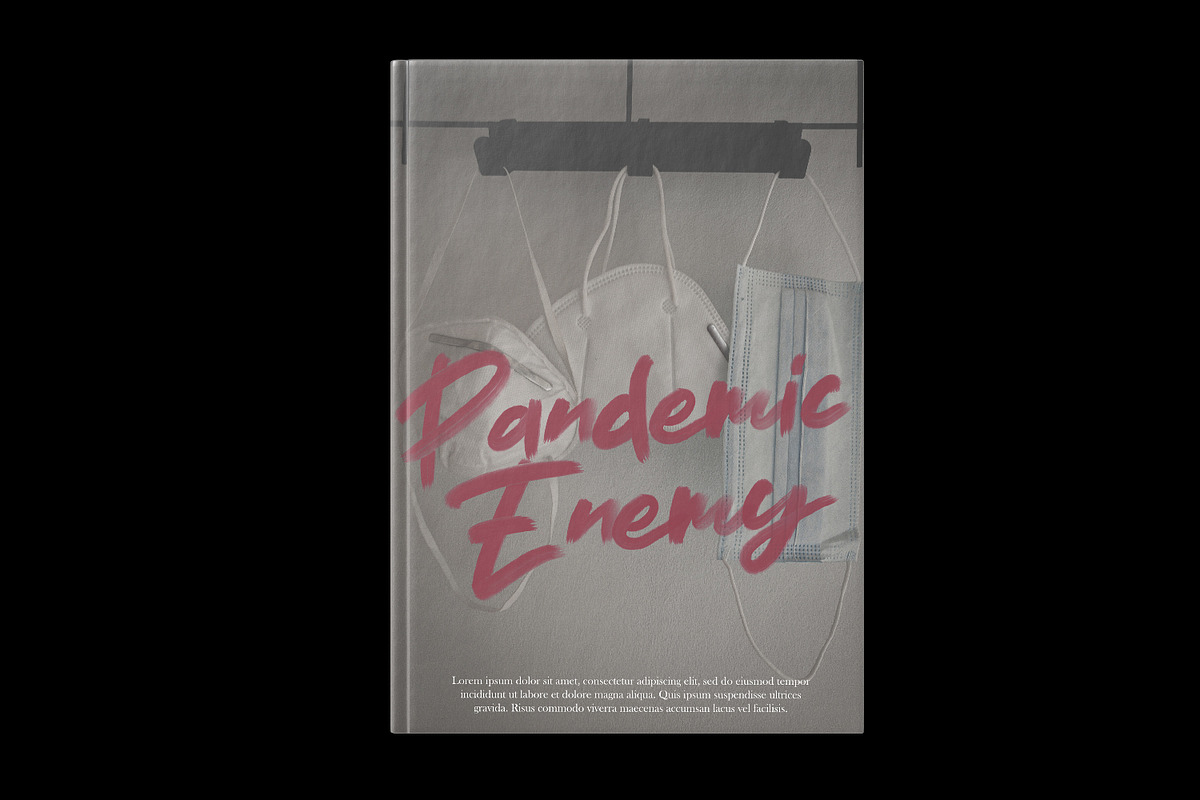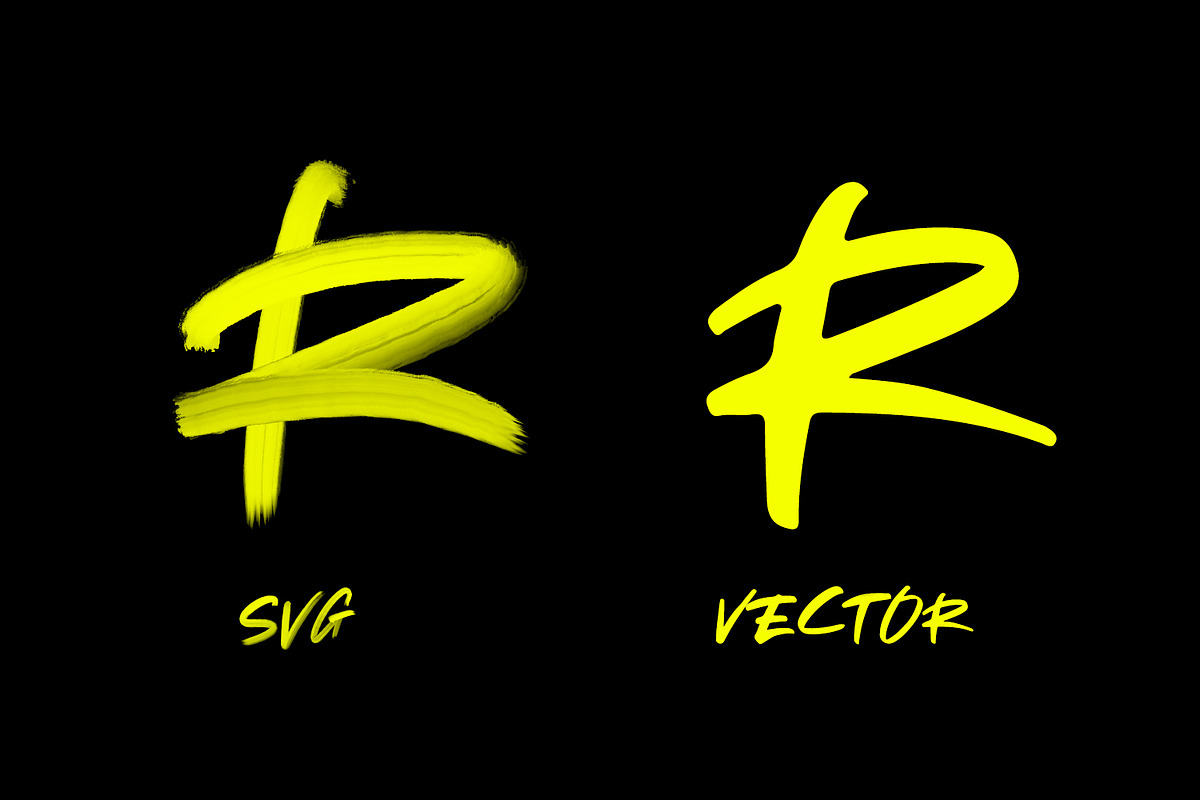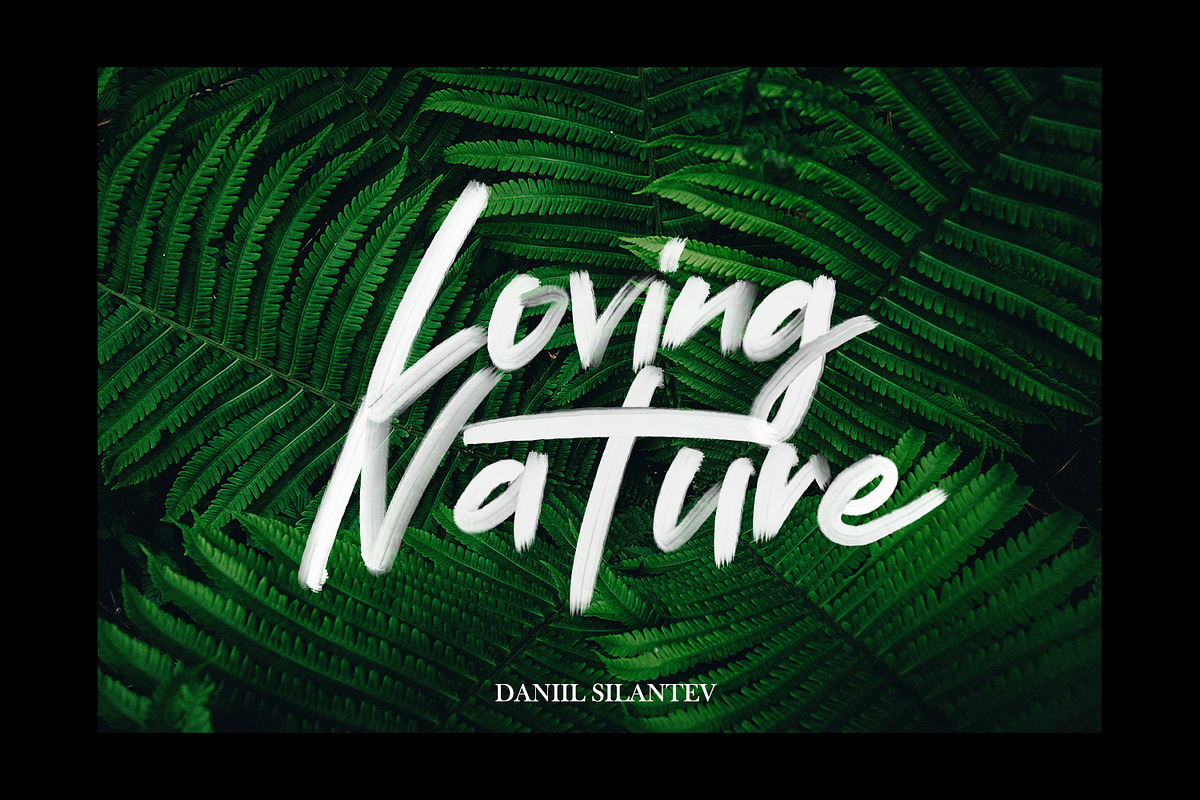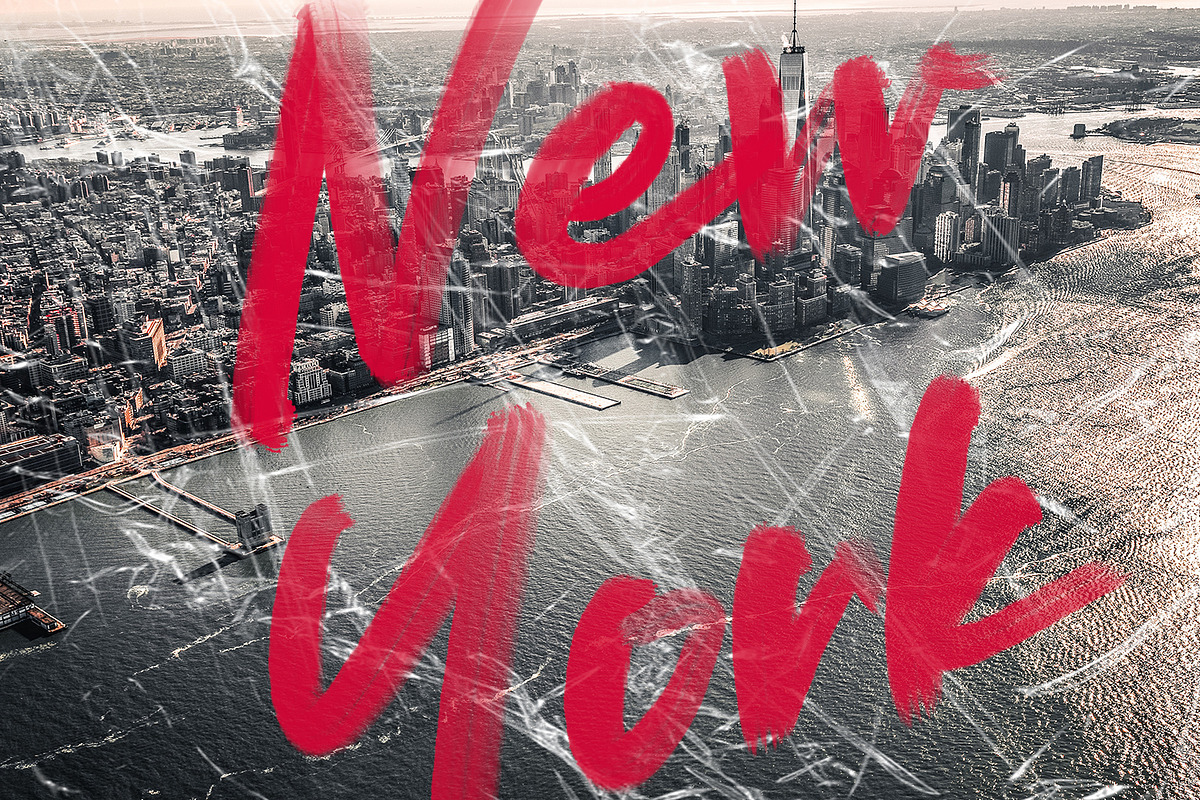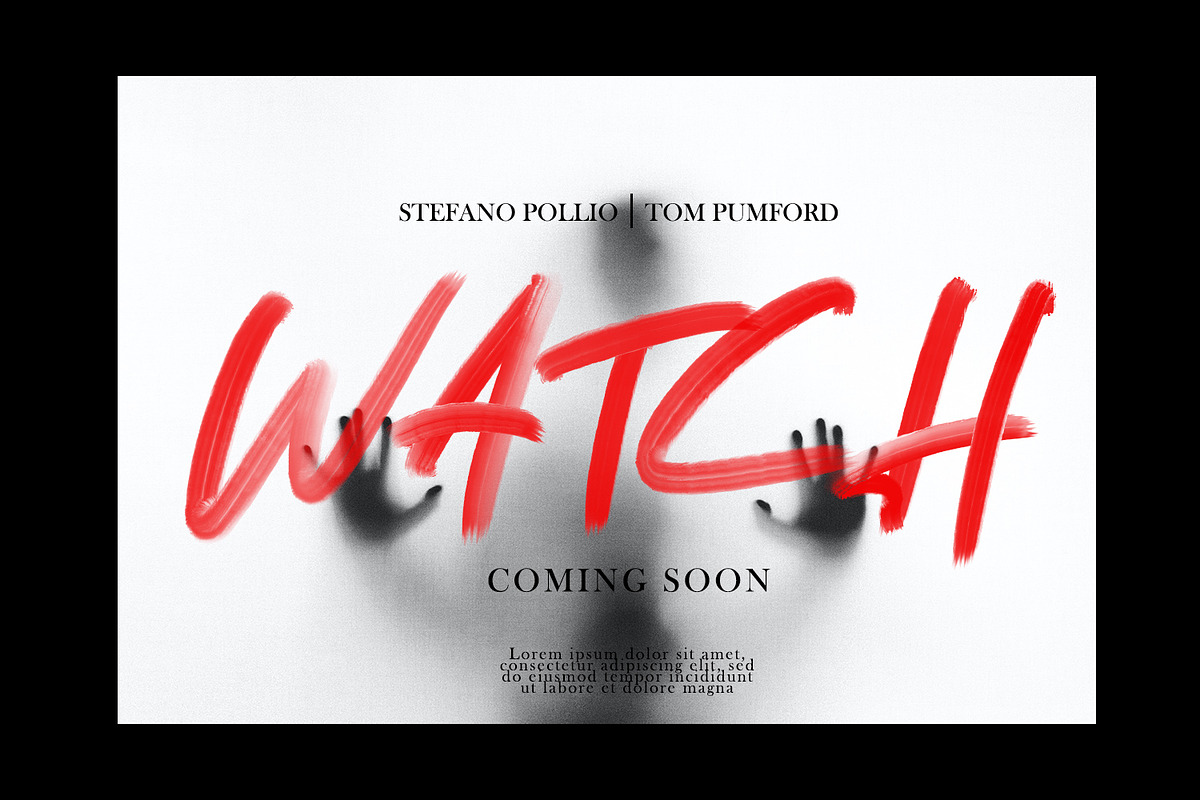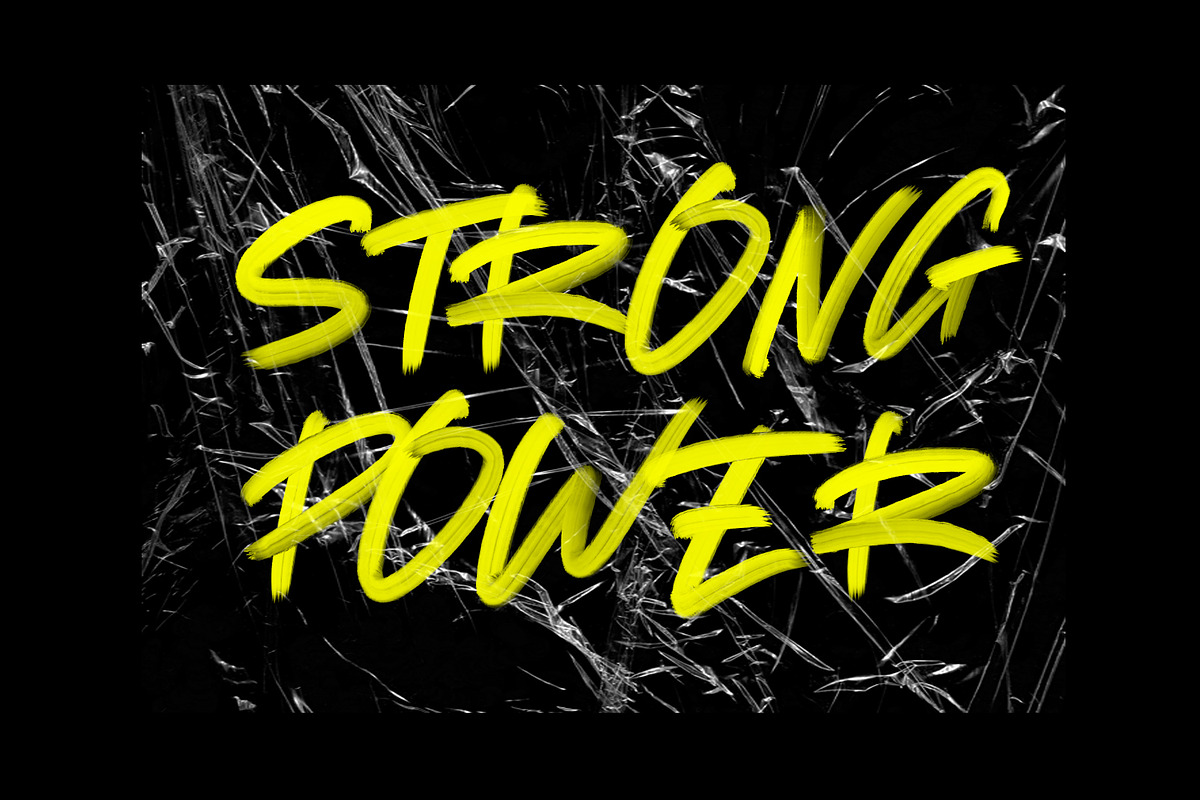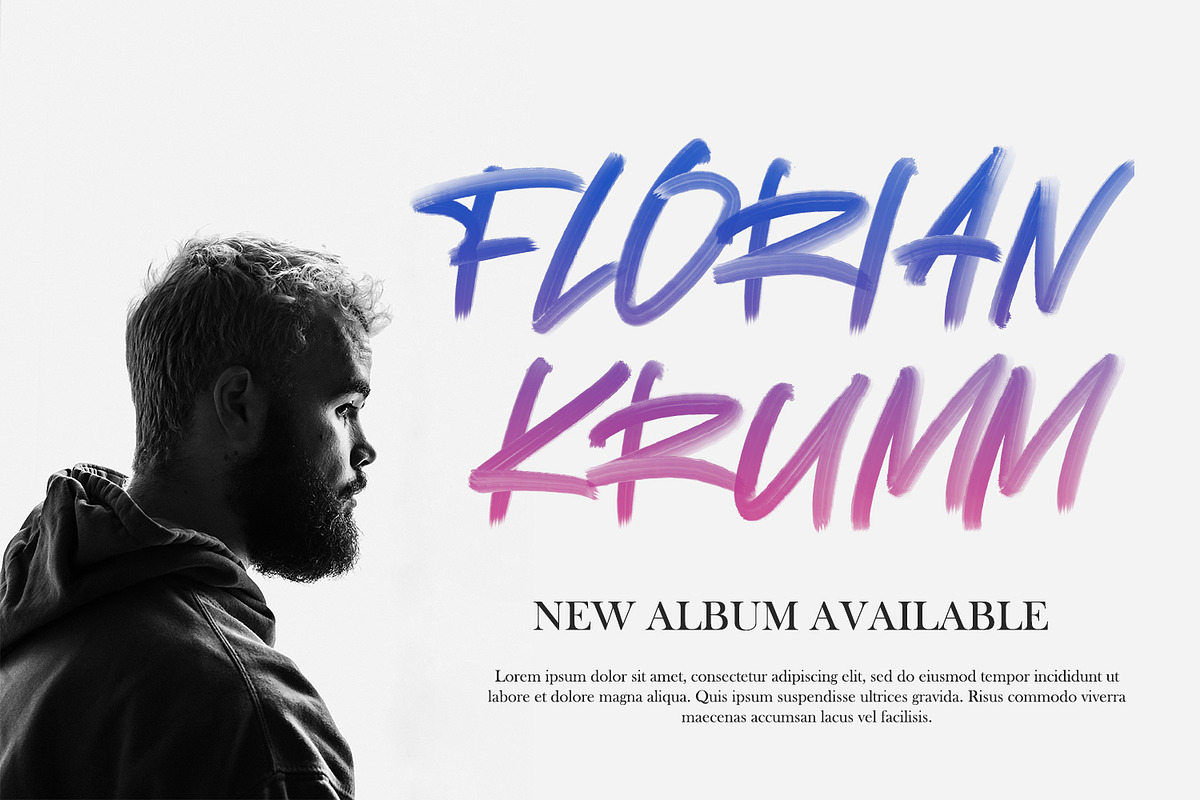
Redrock - SVG Brush Font
Redrock is a strong SVG Handwritten Brush font with detailed textures so it looks good to implement in various designs of your project and your design interests be it for logos, branding names, posters, podcasts and so on. This is perfect for you all.